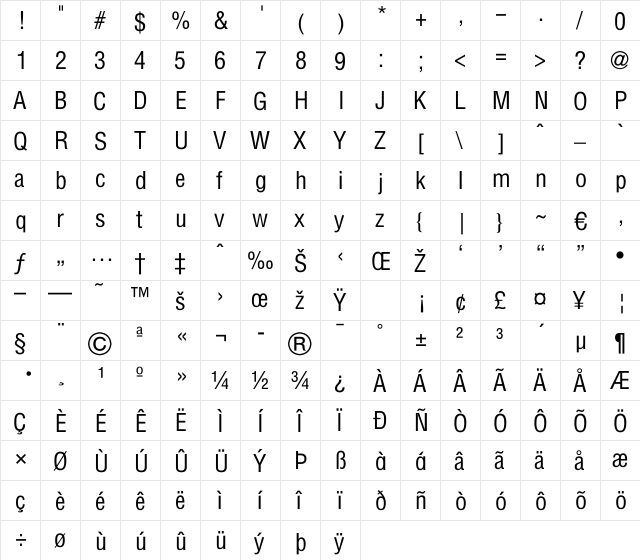
FZYaoTi Regular
Design Context for FZYaoTi Typeface
FZYaoTi takes a measured approach to typography — its balanced proportions and neutral character make it a reliable workhorse for both digital and print work.